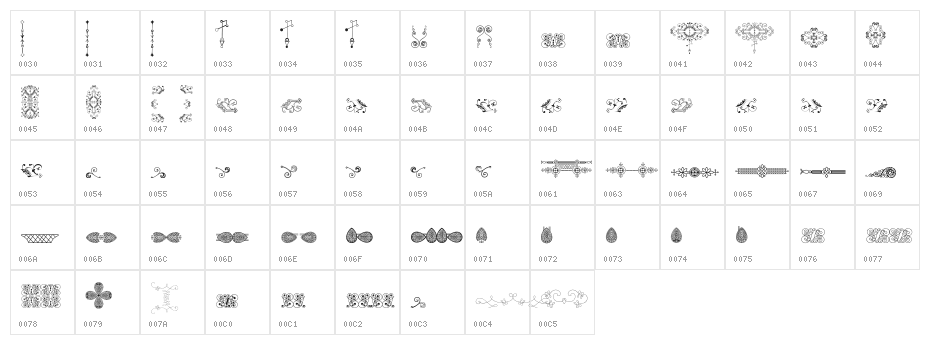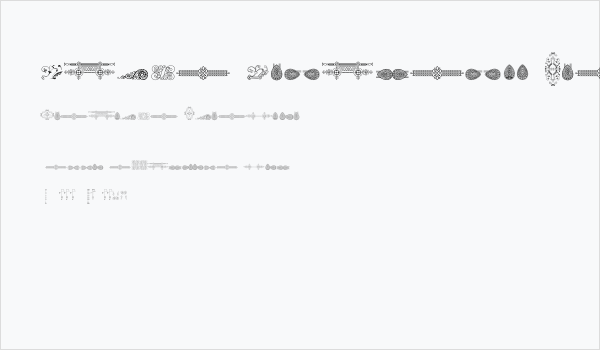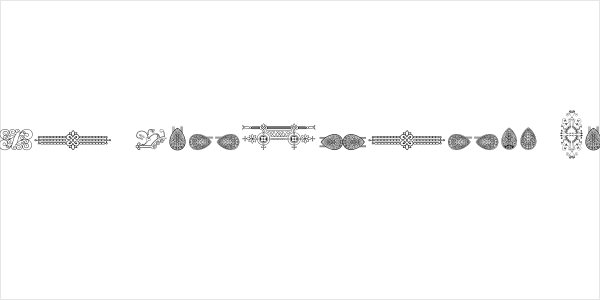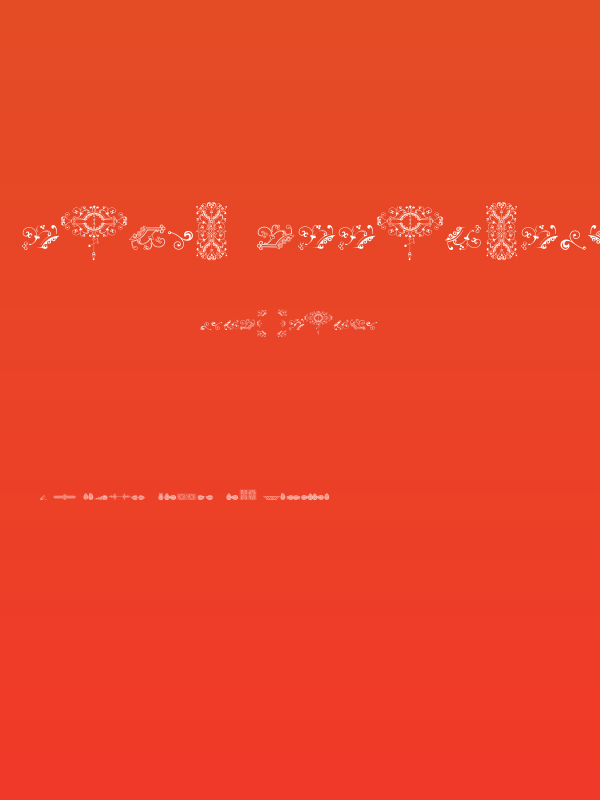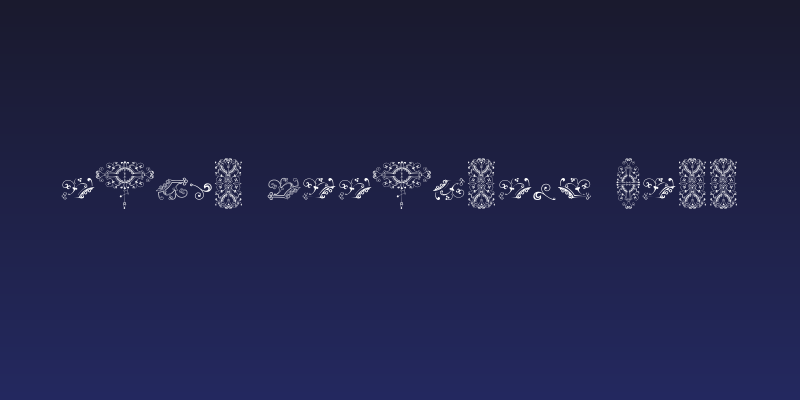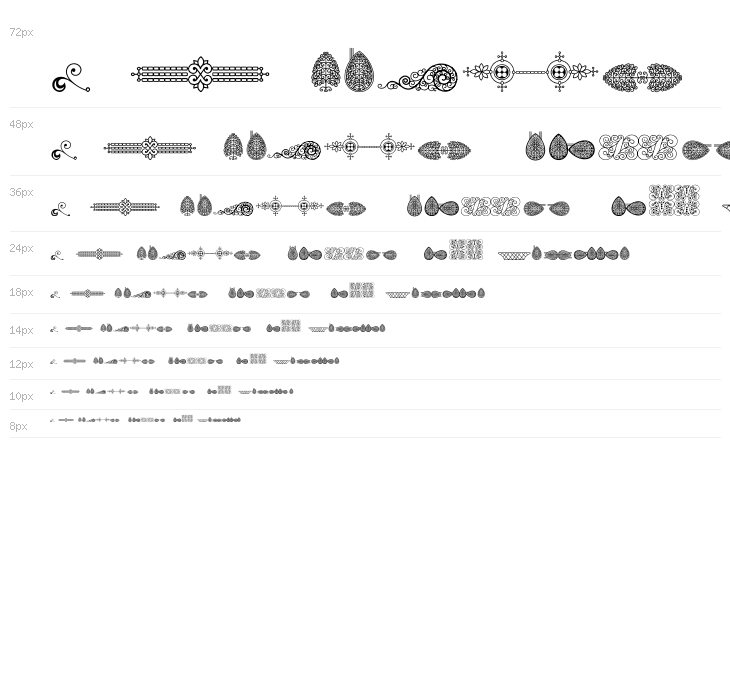
Naive Ornaments Free Font
Naive Ornaments Free Description
A collection of highly decorative, intricate ornamental glyphs featuring swirls, flourishes, geometric motifs, and vintage-inspired embellishments. The designs are detailed and varied, with both symmetrical and asymmetrical elements, suitable for borders, dividers, and accent graphics.
| Overall Style | Vintage, Decorative |
| Use Case | Borders, Dividers, Decorative Accents |
| Proposed Projects | Wedding invitations, vintage posters, certificates, book covers, decorative borders, branding accents. |